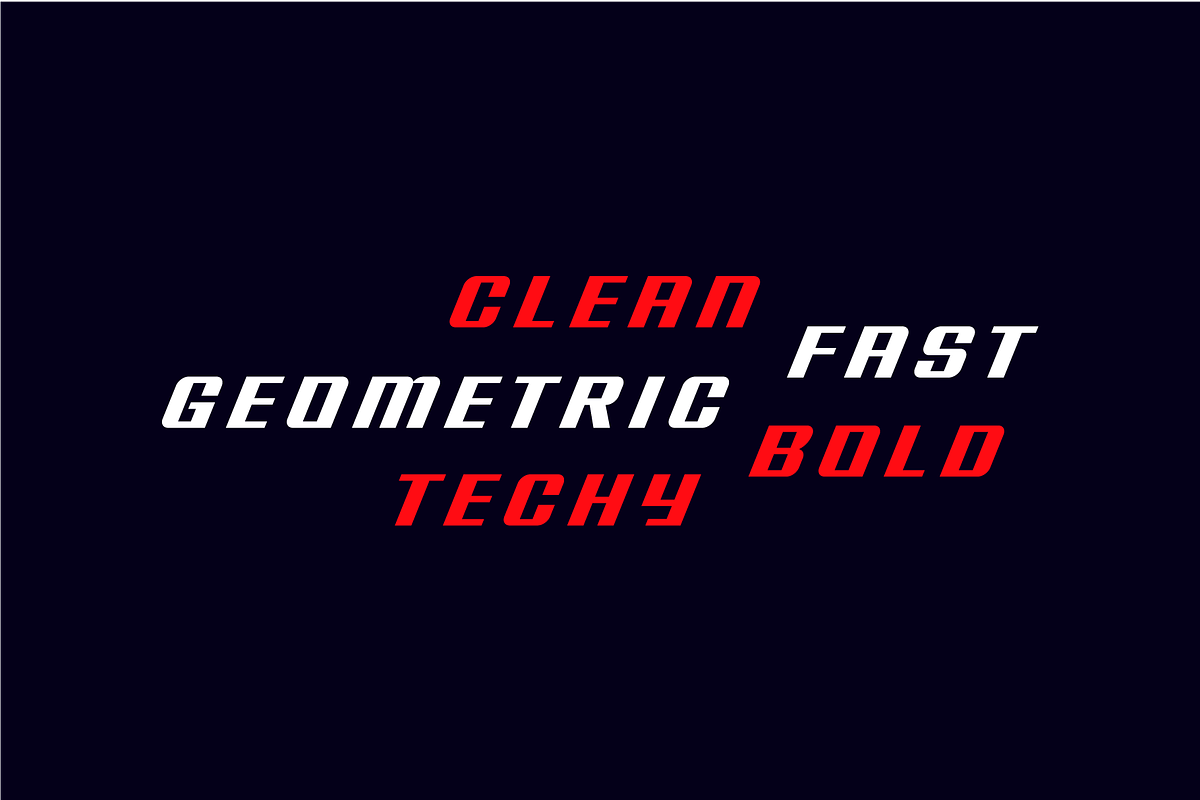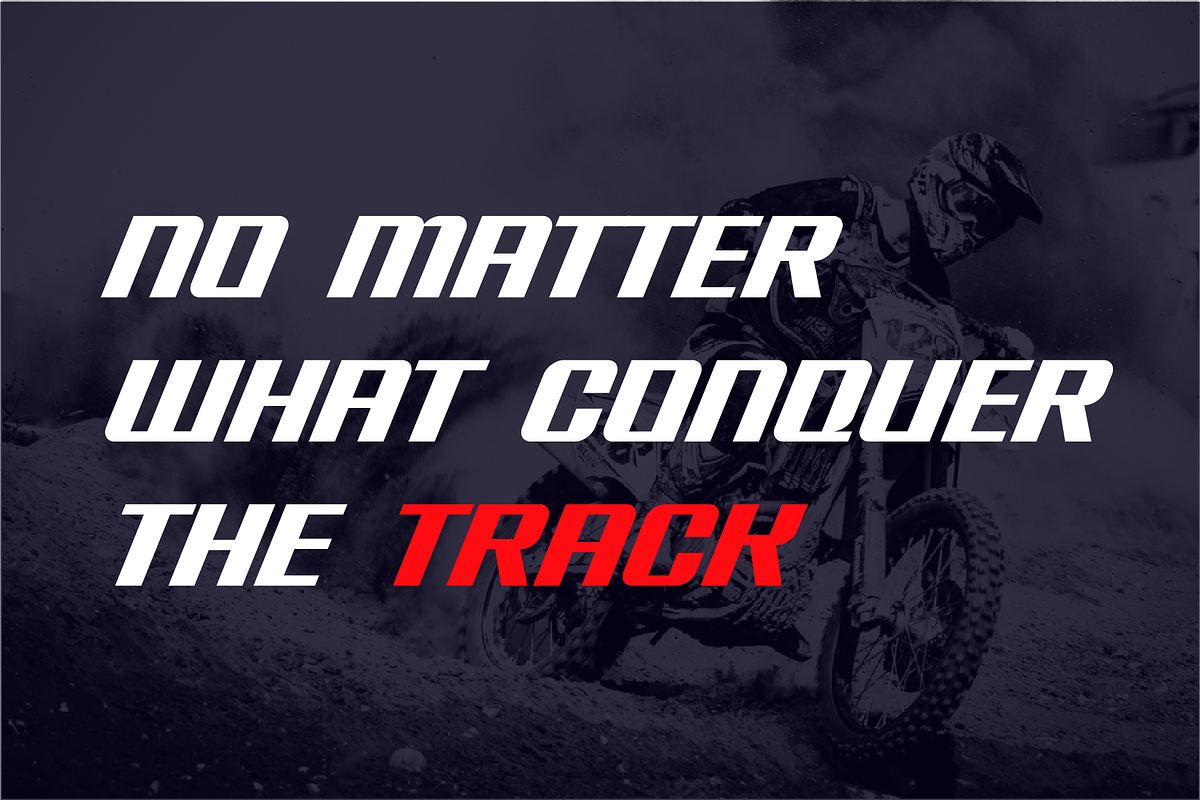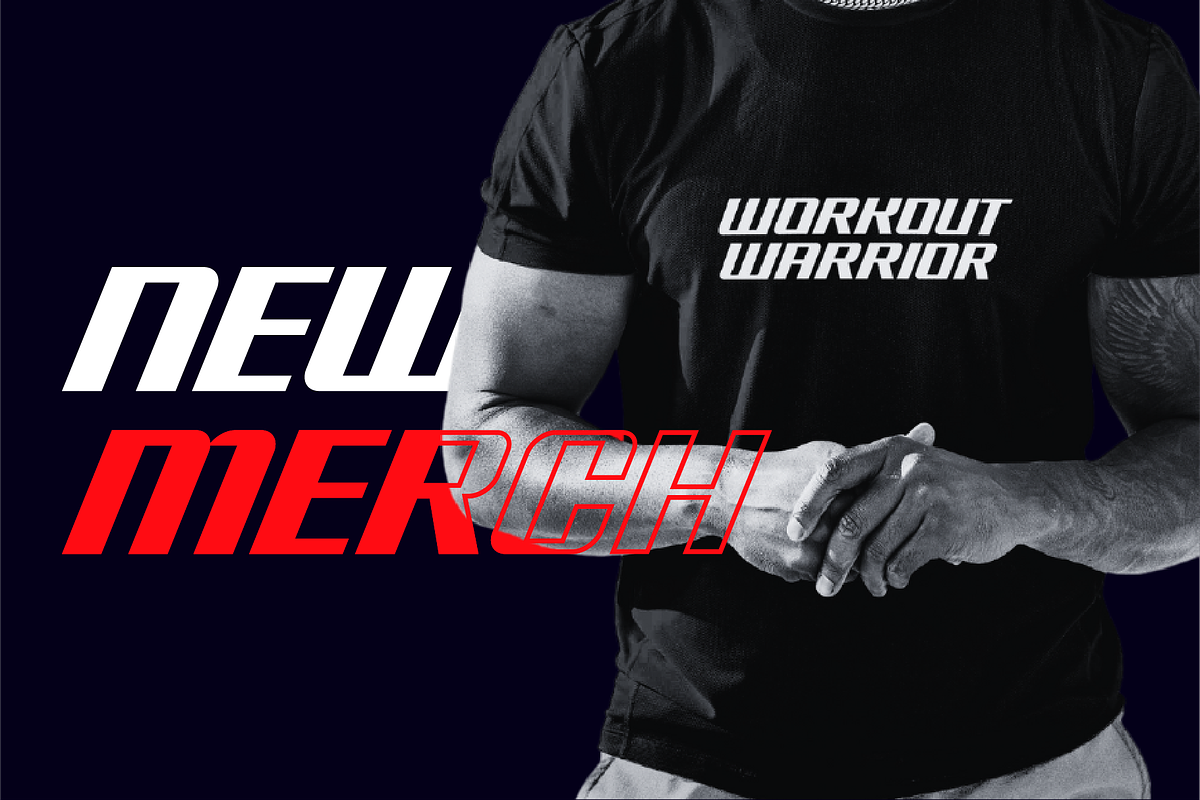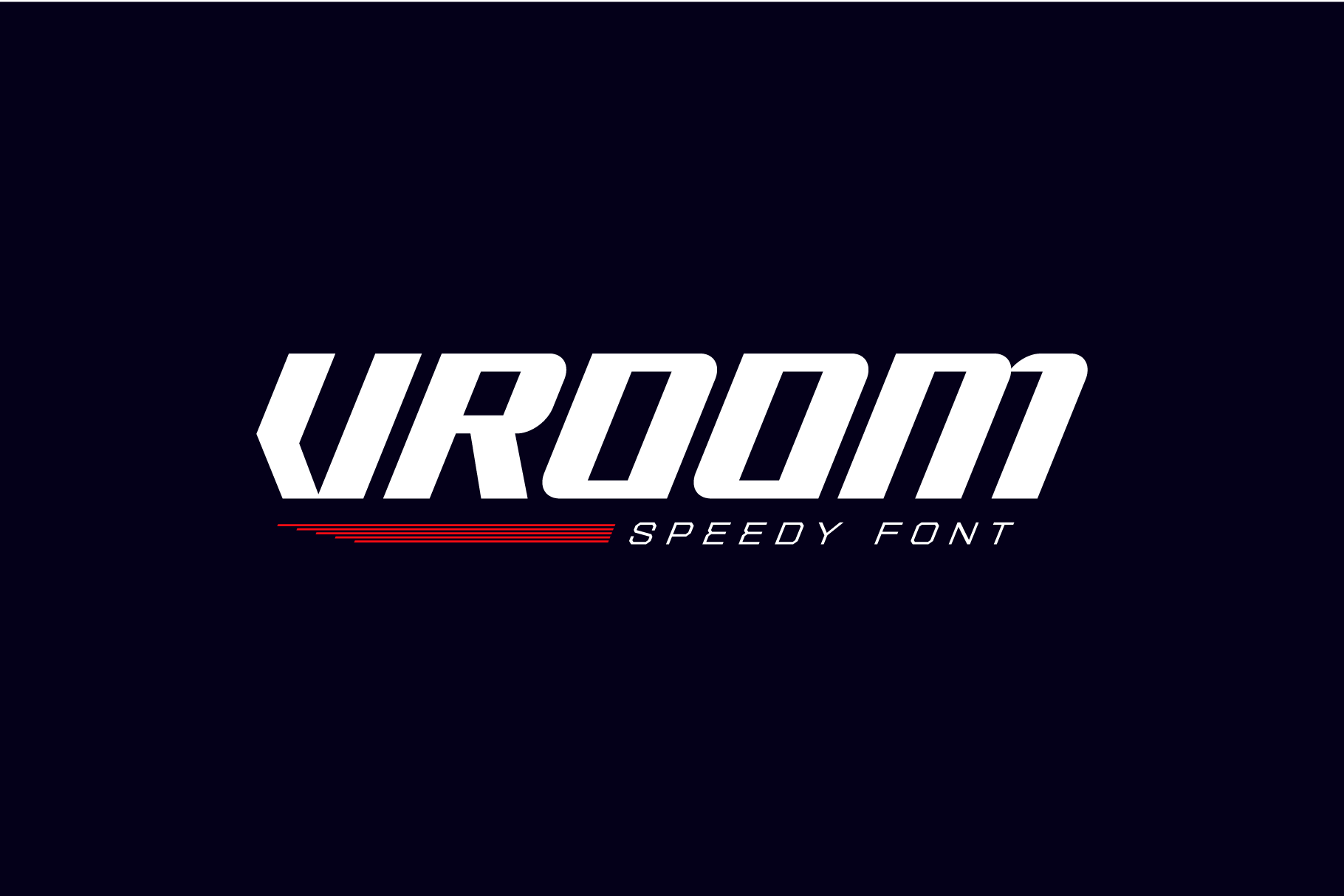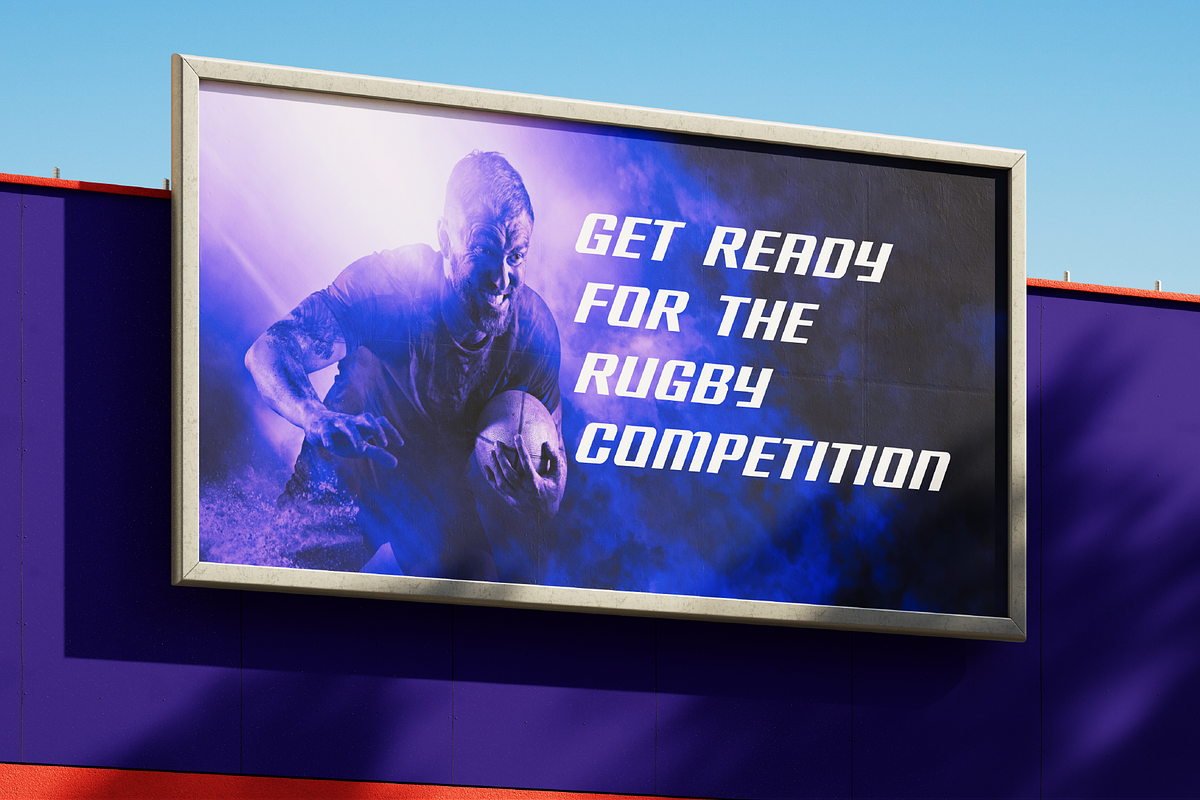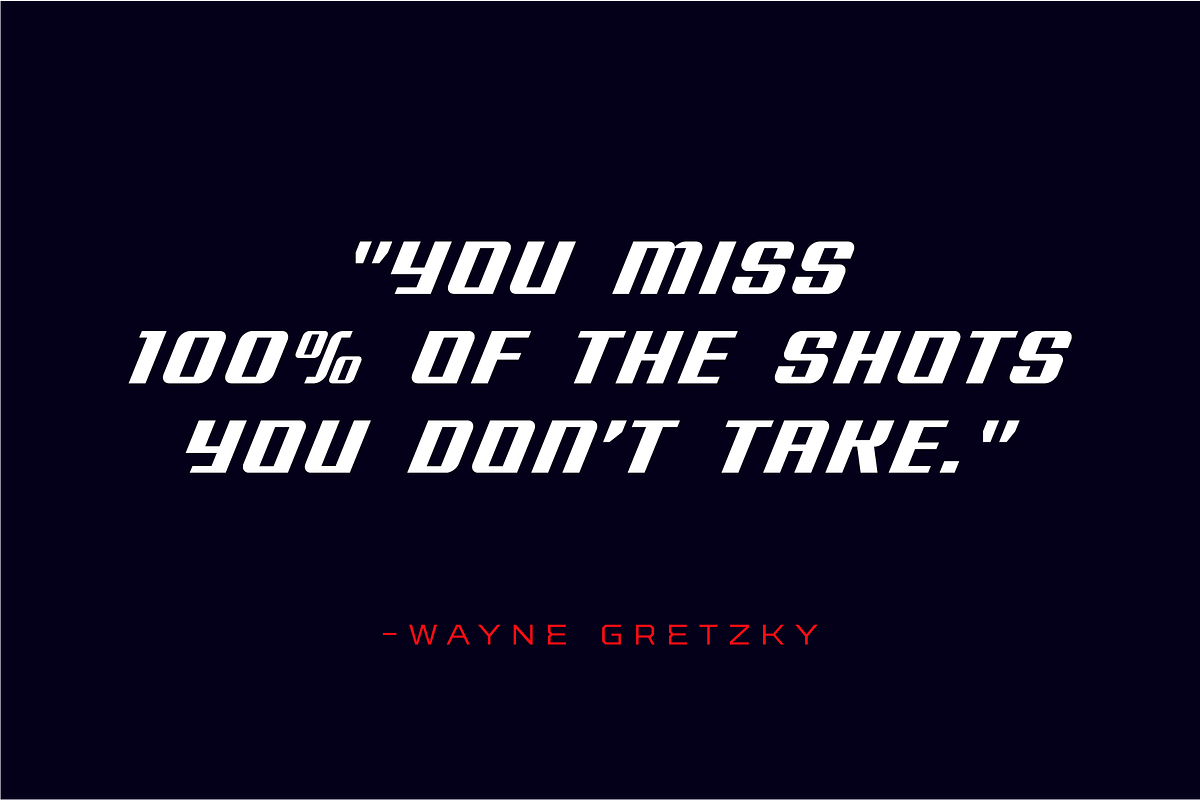
Vroom Bold Sporty Speed Font
Vroom is a dynamic and sporty display font that captures the essence of speed and motion. This sports font features bold and oblique letters with sharp edges and strong geometric shapes giving it a modern, aggressive look. The Vroom speed font is perfect for posters, t-shirt designs, logo designs, social media posts, and more.